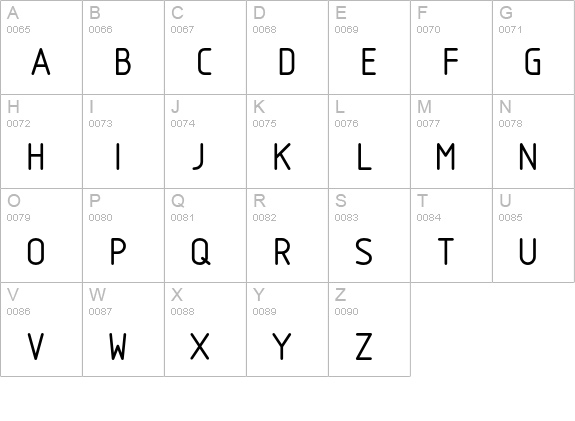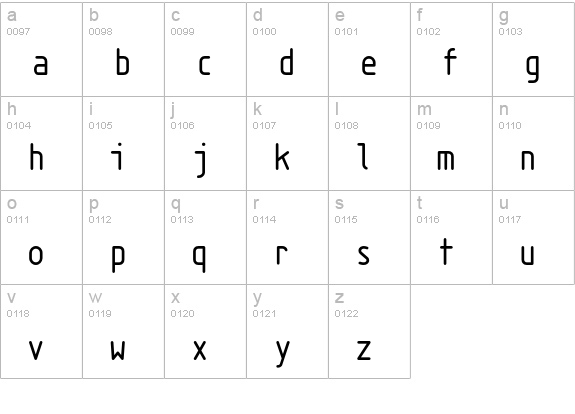
The Isonorm3098-Monospaced font is a modern and sleek typeface that brings a sense of professionalism and clarity to any design project. With its clean lines and balanced proportions, this font is perfect for a wide range of applications, from print materials to digital interfaces. What sets Isonorm3098-Monospaced apart is not only its aesthetic appeal but also its versatility. This font is designed to be highly legible, making it ideal for use in information-heavy designs such as technical manuals, coding environments, and data visualizations. The monospaced nature of the font ensures that each character occupies the same amount of space, allowing for easy alignment and readability. One of the best things about Isonorm3098-Monospaced is that it is freely available to download at FontsMarket.com. This means that you can access and use this font without any restrictions, whether you're a professional designer or an aspiring enthusiast. The creators of Isonorm3098-Monospaced understand the importance of accessibility and have made it a priority to provide this high-quality font to everyone, completely free of charge. So, if you're in need of a versatile and visually appealing font that combines functionality with style, look no further than Isonorm3098-Monospaced. Its clean lines, balanced proportions, and easy readability make it a perfect choice for any design project. And with its availability as a free download on FontsMarket.com, it's never been easier to incorporate this font into your work.